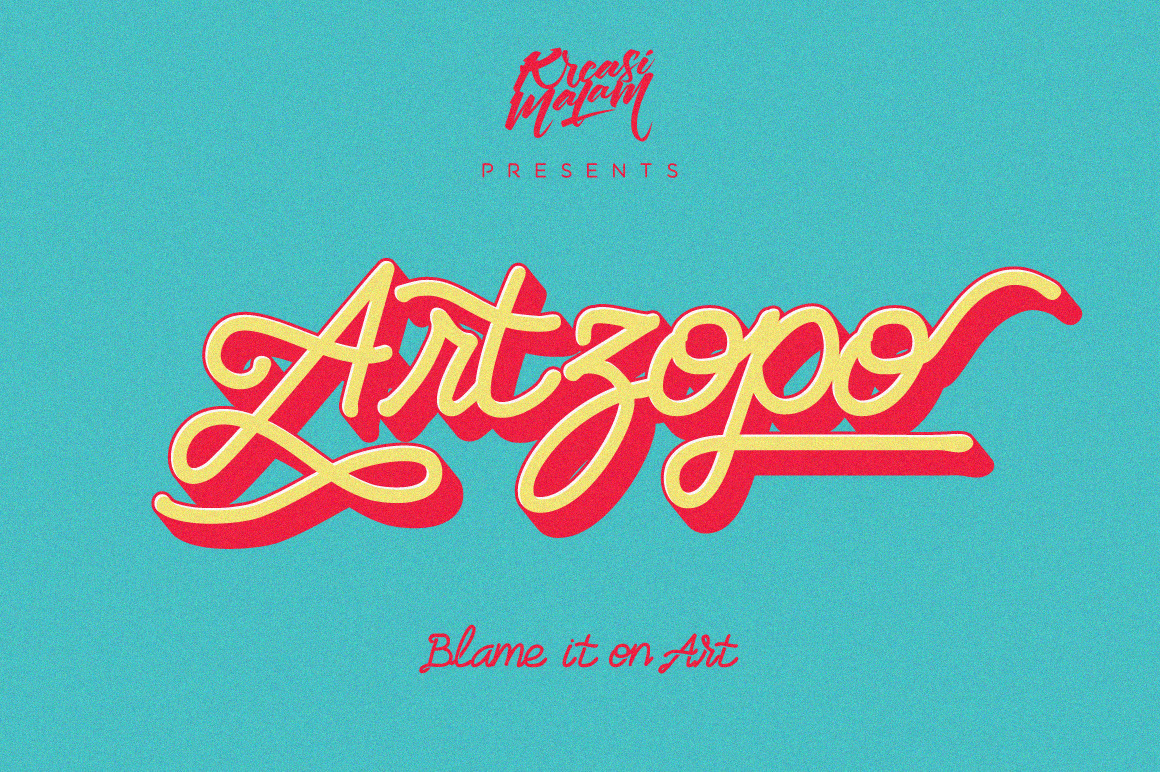
Artzopo Font
Artzopo Font a handmade font with open type feature would be awesome for your design projects. It could be fitted for logos, quotes, t-shirts, posters or anything. Available in uppercase, lowercase, numerals and punctuations. Check out my other works on Graphic River: http://graphicriver.net/user/Ijajil/portfolio